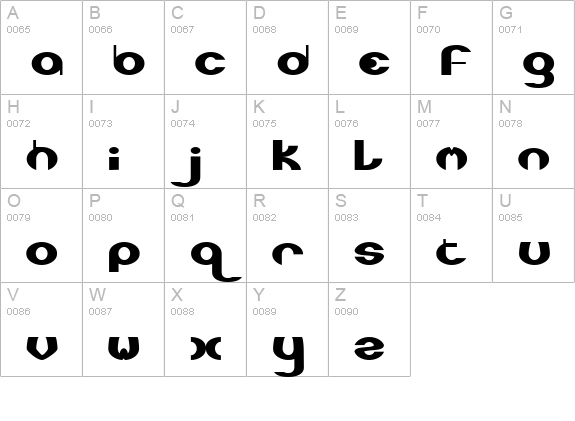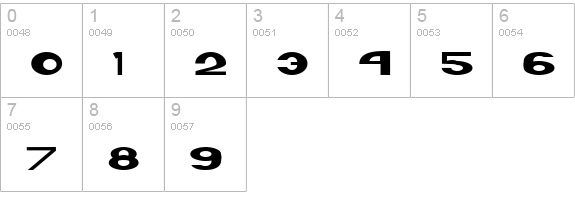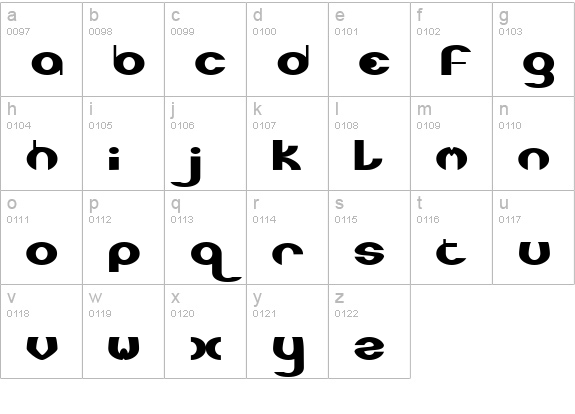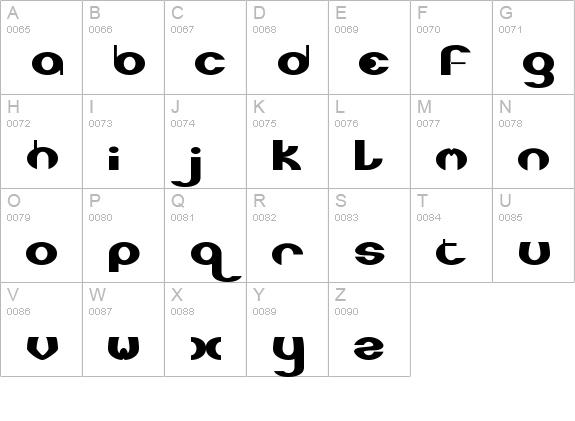
XLR8 Font Details
Introducing XLR8 font, a sleek and modern typeface designed to make your projects stand out with its bold and dynamic appearance. This versatile font is perfect for a wide range of design applications, from branding to advertising, and everything in between. With its sharp lines and contemporary feel, XLR8 font exudes a sense of energy and innovation. And the best part? XLR8 font is completely free to download at FontsMarket.com, making it easily accessible for all your design needs. Whether you're a seasoned designer looking to add a fresh touch to your work or a newcomer in need of a stylish font, XLR8 font has you covered. Don't miss out on this exciting opportunity to elevate your designs with the dynamic and eye-catching XLR8 font!